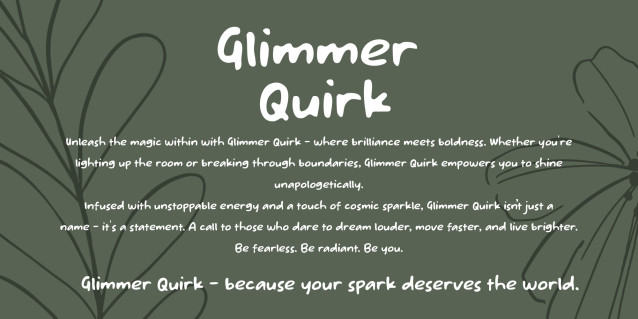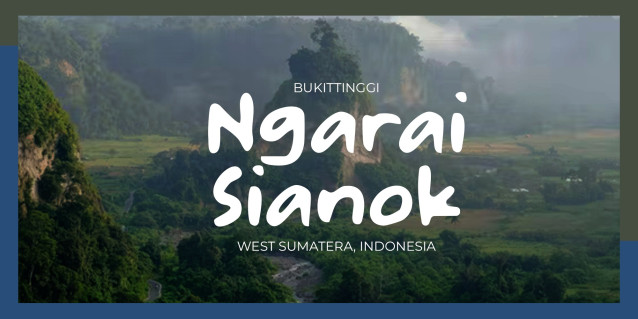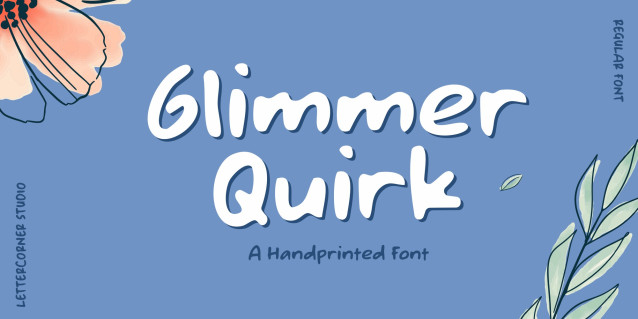
Glimmer Quirk Font
Glimmer Quirk Font is a lively marker typeface full of charm and playful energy. With its smooth handwritten flow and over custom ligatures, it brings a natural, cohesive look to any project. Perfect for logos, branding, quotes, social media graphics, and creative photography, Glimmer Quirk adds a spark of personality and effortless style wherever it goes. Let your designs shine with a font that’s bold, organic, and full of heart.